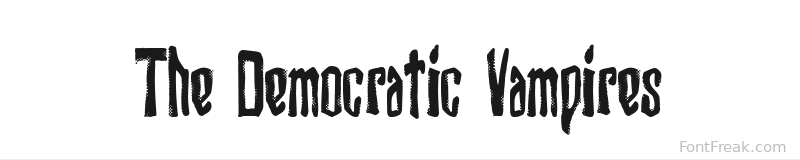
The Democratic Vampires
About The Democratic Vampires
The Democratic Vampires is a striking display typeface designed by woodcutter Manero, showcasing a unique style that combines both gothic and contemporary influences. This font falls into the decorative category, characterized by its bold, irregular stroke weight and eye-catching, dramatic forms. The letterforms exhibit a high contrast, with sharp edges that evoke a sense of whimsy and intrigue, making it an excellent choice for projects that require a touch of flair. The spacing is well-considered, allowing for readability while maintaining a dynamic visual impact.
This font is particularly well-suited for a variety of creative applications. It shines in contexts such as movie posters, where its theatrical essence can enhance the overall design. Wedding invitations benefit from its romantic yet playful aesthetic, adding a layer of personality to special announcements. Additionally, The Democratic Vampires works effectively on restaurant menus, especially for establishments with a quirky or themed ambiance, as well as on merchandise for events or festivals that embrace a bold visual identity.
Targeting graphic designers, small business owners, and content creators, The Democratic Vampires font free download offers a versatile option for those looking to make a statement. Its distinctive character can elevate branding efforts, ensuring that any project stands out in a crowded marketplace.
What sets this font apart is its ability to blend elegance with an avant-garde edge, inviting viewers to engage with the text. The Democratic Vampires is not just a typeface; it’s a conversation starter, making it an essential addition to any designer's toolkit. With its free license, this font provides an accessible yet sophisticated choice for anyone looking to enhance their creative endeavors.